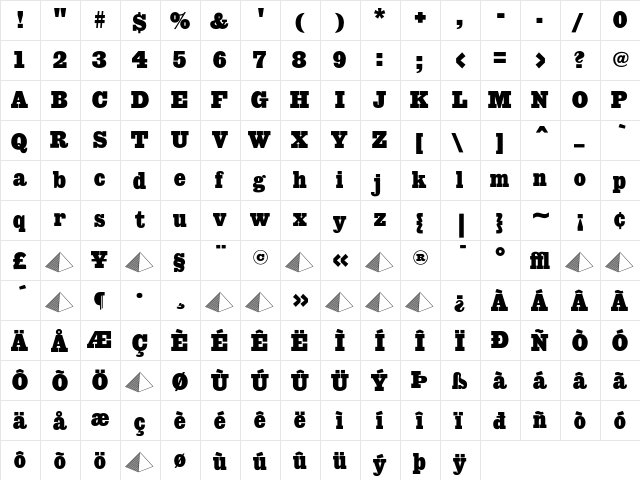
Giza FiveThree
Design Context for Giza Typeface
Giza offers clean, dependable letterforms without strong stylistic allegiance, making it a practical choice for designers who need flexibility.
Pro Tip: Use Giza in both headline and body roles to test its range before committing to a single application.